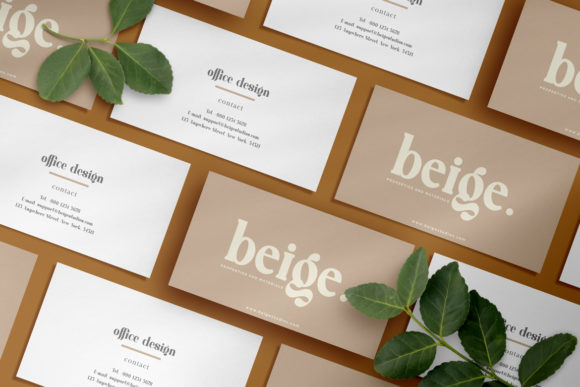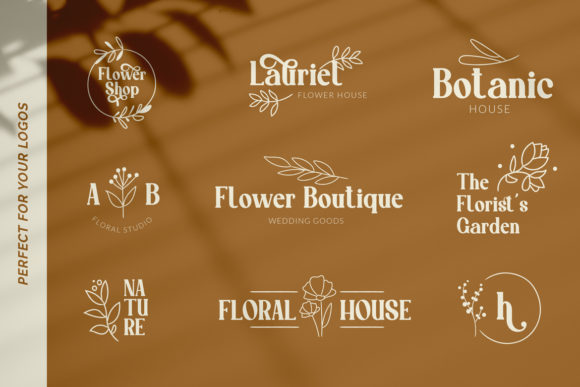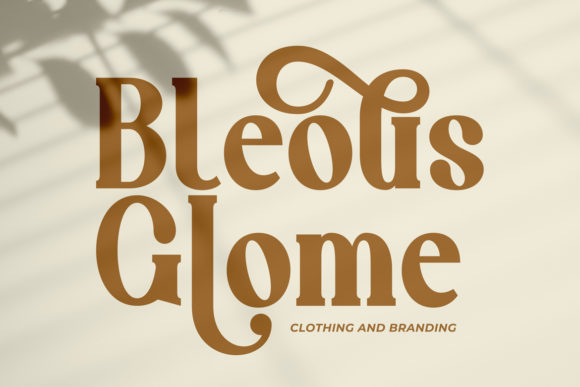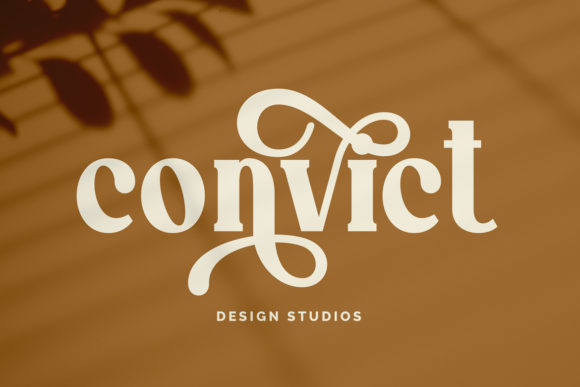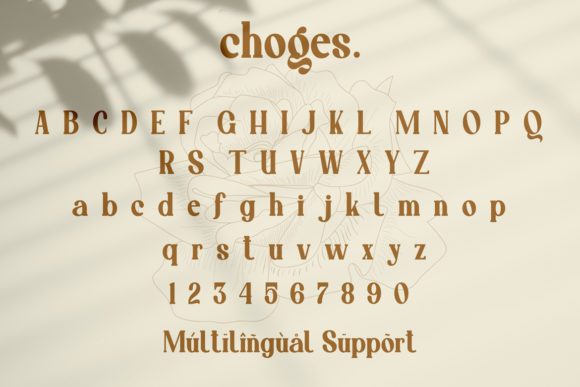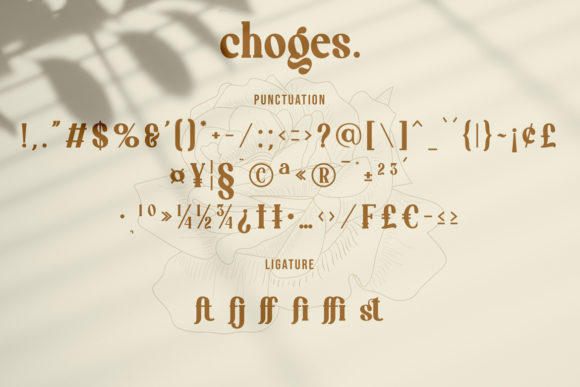
Introducing Choges Font: The Modern and Bold Serif for Creative Projects
Are you tired of using the same old fonts for your design projects? Look no further than Choges Font, a modern and bold serif font that’s sure to make your creations stand out. With its sleek and sophisticated design, Choges is the perfect addition to any project, from branding and advertising to packaging and editorial design.
What Makes Choges Font So Special?
Choges Font is a versatile and highly adaptable font that can be matched with an incredibly large set of projects. Its bold and modern design makes it perfect for headlines, titles, and other display text, while its clear and legible serif design ensures that it remains easy to read even at smaller sizes.
Key Features of Choges Font
- Modern and Bold Design: Choges Font features a sleek and sophisticated design that’s perfect for making a statement.
- Serif Font: The serif design of Choges Font adds a touch of elegance and sophistication to any project.
- Highly Adaptable: Choges Font can be matched with a wide range of projects, from branding and advertising to packaging and editorial design.
- Easy to Read: Despite its bold design, Choges Font remains clear and legible even at smaller sizes.
How to Use Choges Font in Your Design Projects
Choges Font is incredibly easy to use and can be incorporated into a wide range of design projects. Here are a few ideas to get you started:
- Branding and Advertising: Use Choges Font as a headline font to grab attention and make a statement.
- Packaging Design: Add a touch of elegance and sophistication to your packaging designs with Choges Font.
- Editorial Design: Use Choges Font as a display font to add visual interest to your editorial designs.
- Web Design: Use Choges Font as a headline font to add a touch of modernity and sophistication to your website.
Tips for Getting the Most Out of Choges Font
Here are a few tips for getting the most out of Choges Font:
- Experiment with Different Sizes: Don’t be afraid to experiment with different sizes of Choges Font to find the perfect fit for your project.
- Pair with Other Fonts: Choges Font pairs well with a wide range of other fonts, so don’t be afraid to get creative and try out different combinations.
- Use it Sparingly: While Choges Font is bold and attention-grabbing, it can be overwhelming if used too much. Use it sparingly to add visual interest to your designs.
Choges Font is a modern and bold serif font that’s perfect for designers and crafters looking to add a touch of sophistication and elegance to their projects. With its highly adaptable design and easy-to-read serif font, Choges is sure to become a go-to font for a wide range of design applications. So why wait? Download Choges Font today and start making your designs stand out!
Choges Font: The Perfect Addition to Your Design Toolbox
Choges Font is a versatile and highly adaptable font that’s perfect for designers and crafters looking to add a touch of modernity and sophistication to their projects. With its bold and attention-grabbing design, Choges Font is sure to become a staple in your design toolbox. So why wait? Download Choges Font today and start creating stunning designs that stand out from the crowd!